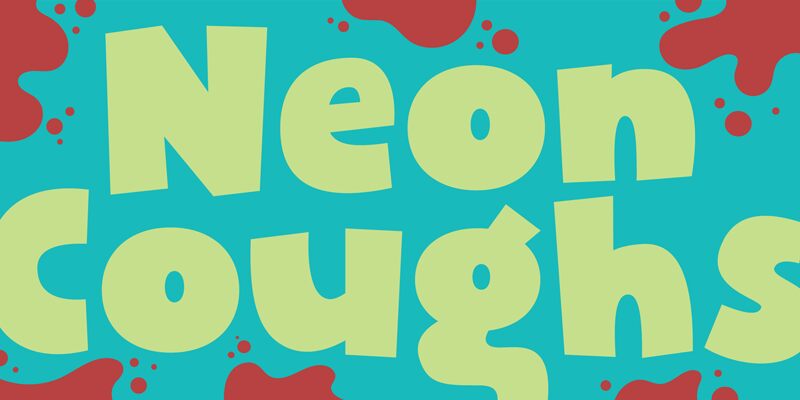
Neon Coughs DEMO
Neon Coughs, a playful and vibrant display font designed by Pizzadude, adds a pop of excitement to any project. With its extra-bold weight and comic style, it injects an energetic and fun atmosphere into designs.
Perfectly suited for children's books, party invitations, or even trendy product packaging, this font brings life to your creative projects. Its distinctive and eye-catching appearance ensures that your message will stand out from the crowd.
Let Neon Coughs bring a burst of personality to your next design endeavor!